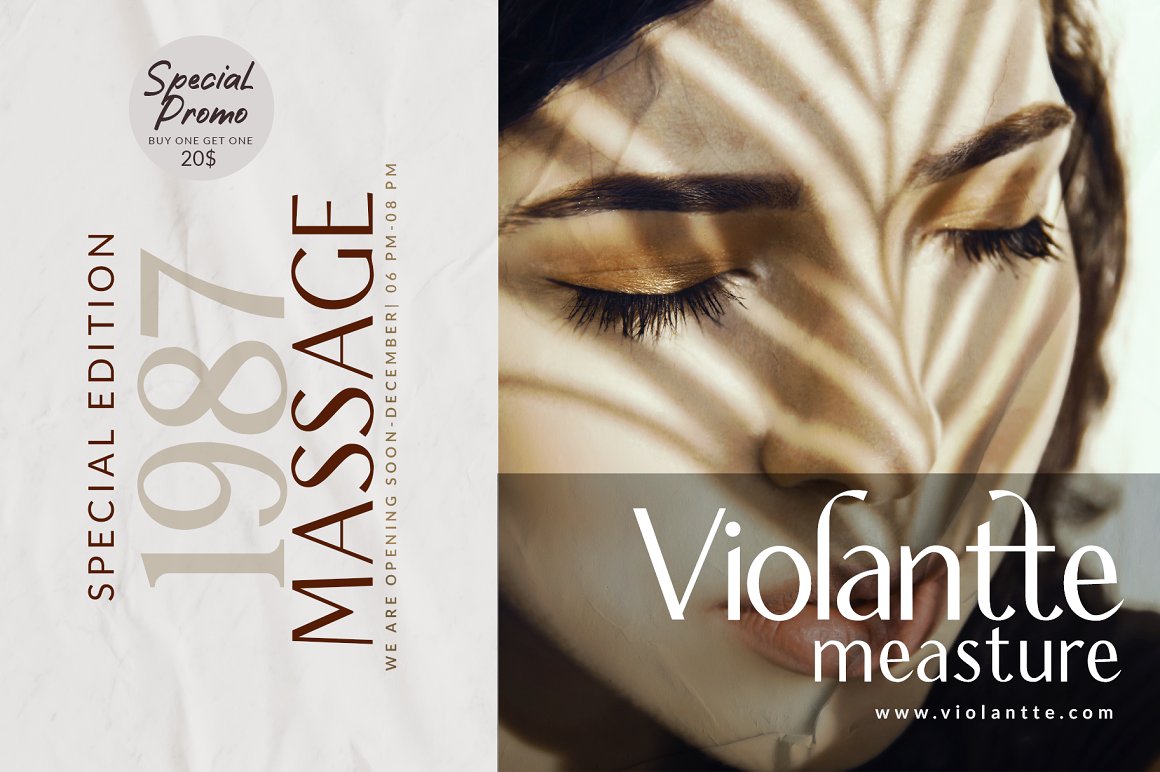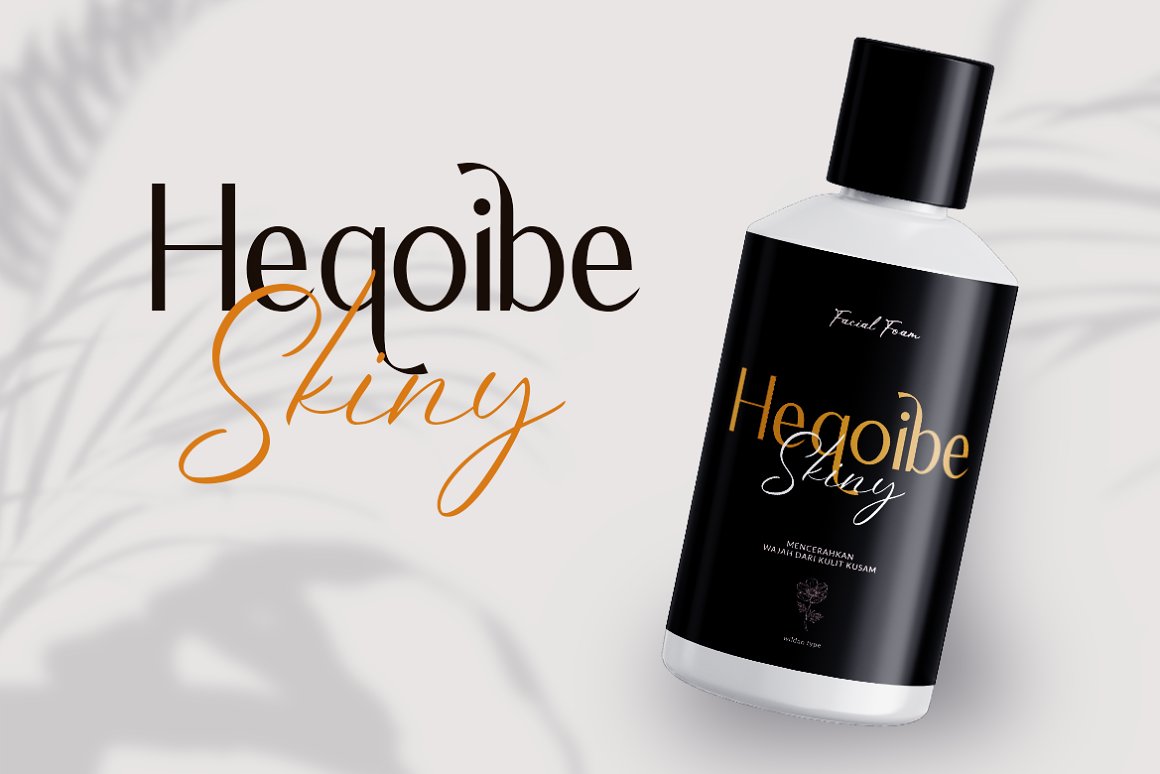
Qapitaly Font
Qapitaly Sans Serif Font
It’s a display sans serif typeface inspired by the beauty of modern sans serif and calligraphic style, fused with elegant appeal to blend with modern needs.This font has regular and italic style.